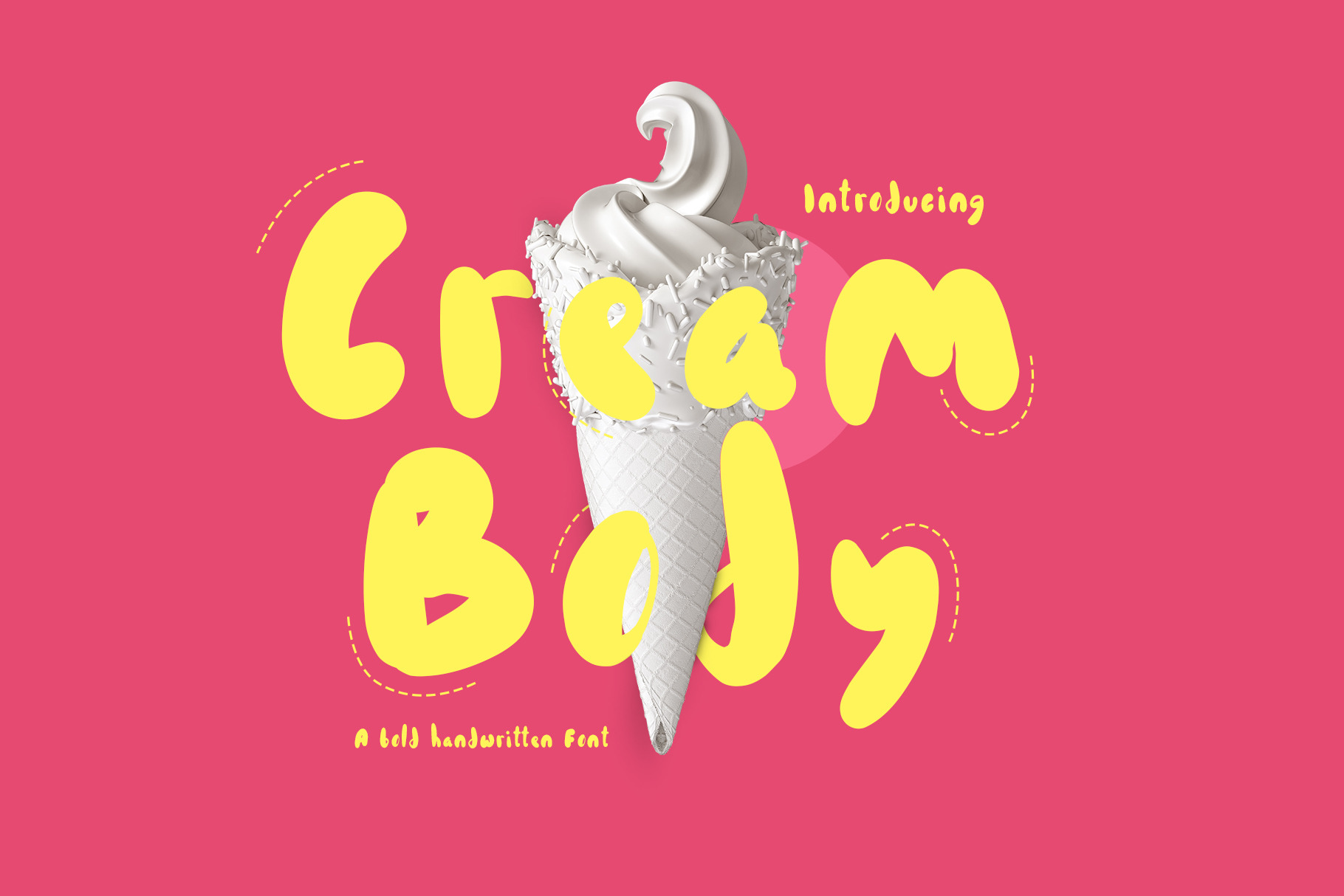
Cream Body A Bold Handwritten Font
Cream Body is the result of a creative process that has produced a display font with a cute, fresh, and enjoyable character. During its creation, the designer aimed to bring a smile to people's faces when they see this font used in various contexts. Cream Body font is highly suitable for designing posters, branding, packaging, or other design projects that aim to grab attention and evoke a smile from those who see it. So, what are you waiting for? Make Cream Body an essential element in your design journey